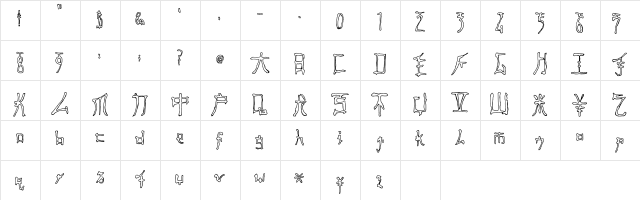
Fast Monk Ink Outline Regular
| Foundry | The Crown Is Mine |
| Designer | Shelley Evans |
Design Context for Fast Monk Ink Outline Typeface
Fast Monk Ink Outline is built around its visual character rather than neutral utility — its distinctive forms are designed to make an impression at display sizes.
Font Pairing: Pair with a clean neutral sans-serif for body copy to let Fast Monk Ink Outline's character lead without overwhelming the composition.
Pro Tip: Use Fast Monk Ink Outline exclusively at display sizes — it was designed to be seen, not read at length. Let a neutral companion handle body copy.